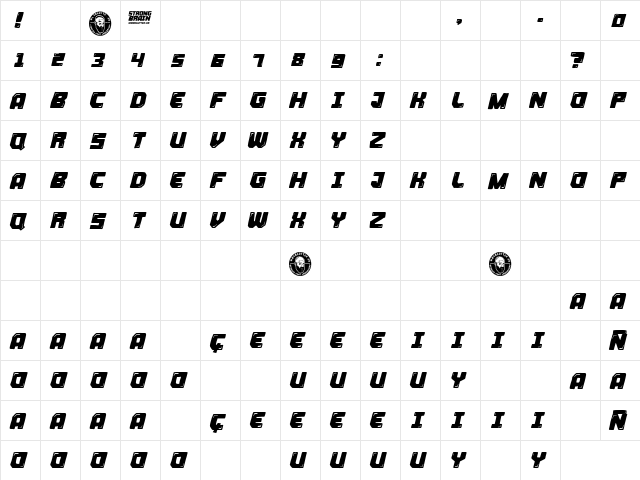
Strong Brain Regular Font Preview
Strong Brain Regular
Strong Brain Regular Font Details
| Designer | Woodcutter Manero |
Design Context for Strong Brain Typeface
Strong Brain is a composed and adaptable typeface that performs quietly and consistently across a wide range of design contexts.
Pro Tip: Use Strong Brain in both headline and body roles to test its range before committing to a single application.